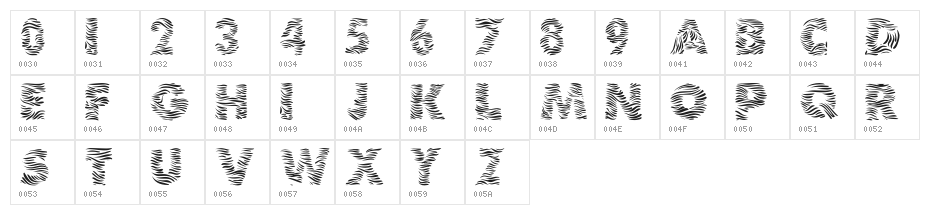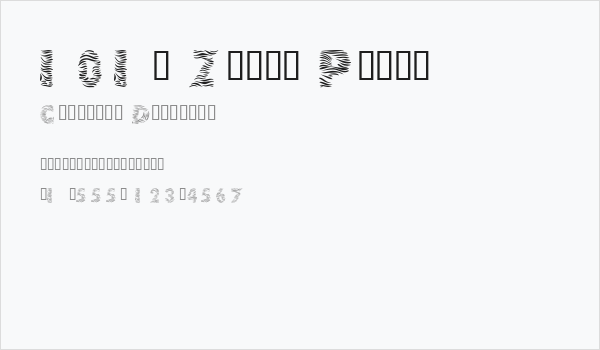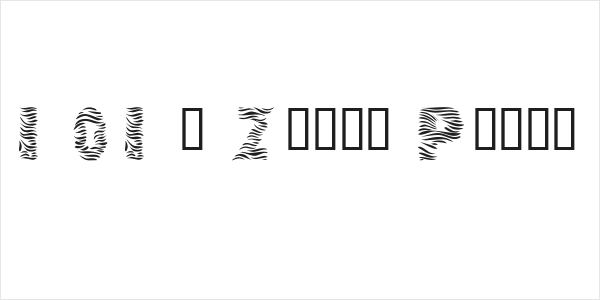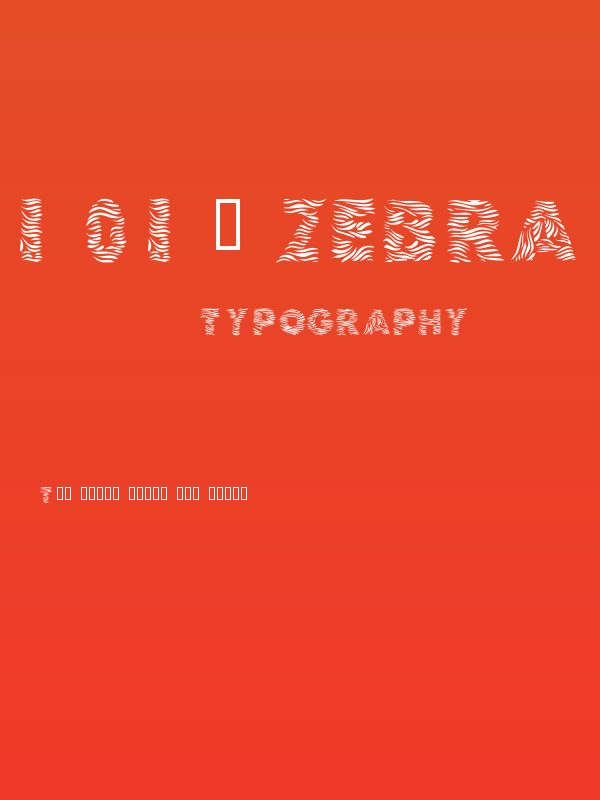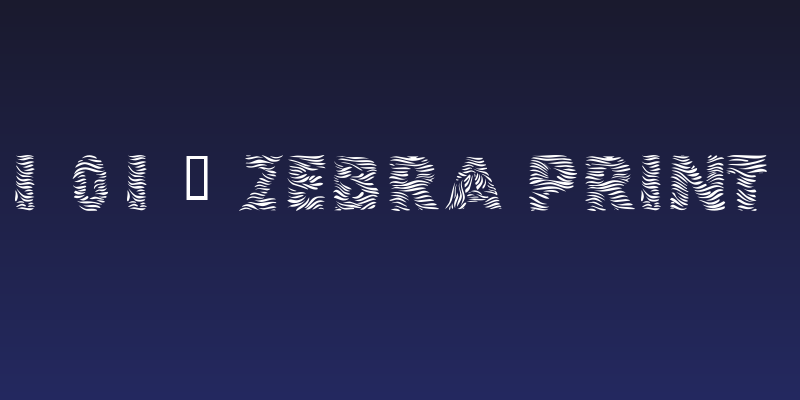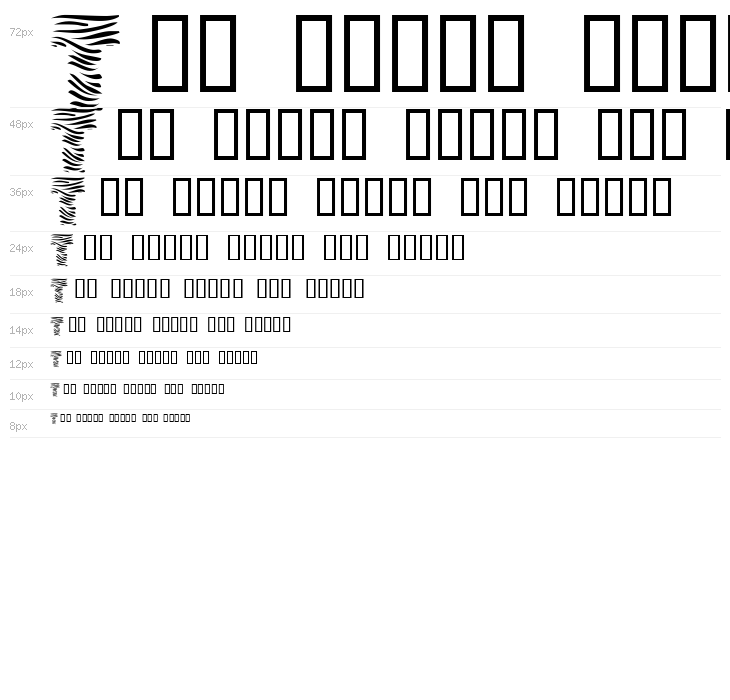
101! Zebra Print Font
101! Zebra Print Description
This font features a unique zebra print pattern within each character, creating a bold and eye-catching design. The uppercase letters A-Z are adorned with intricate black and white stripes, reminiscent of a zebra's natural pattern. The numbers 0-9 follow the same design, ensuring consistency across all characters. This decorative style is perfect for projects that require a wild, adventurous, or nature-inspired theme. The font's playful and dynamic appearance makes it suitable for creative and artistic applications.
| Proposed Projects | Ideal for posters, event flyers, children's book covers, and branding for nature-themed products. |